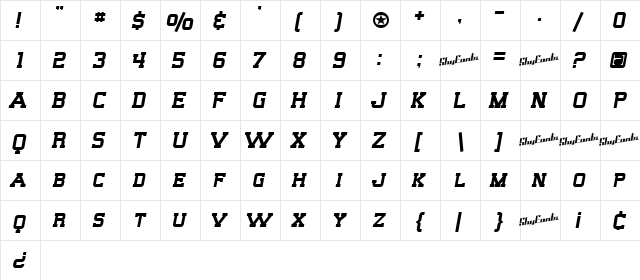
SF Big Whiskey SC Regular Font Preview
SF Big Whiskey SC Regular
SF Big Whiskey SC Regular Font Details
Design Context for SF Big Whiskey SC Typeface
SF Big Whiskey SC is a composed and adaptable typeface that performs quietly and consistently across a wide range of design contexts.